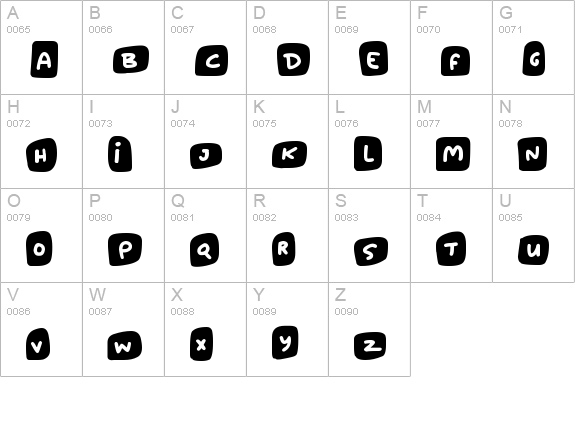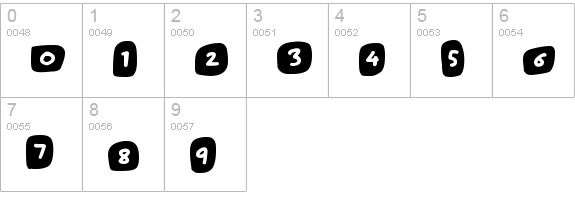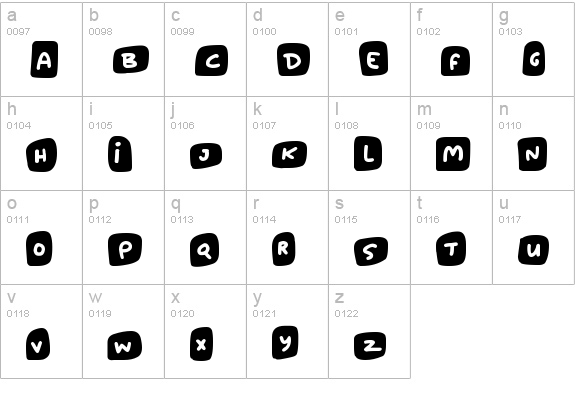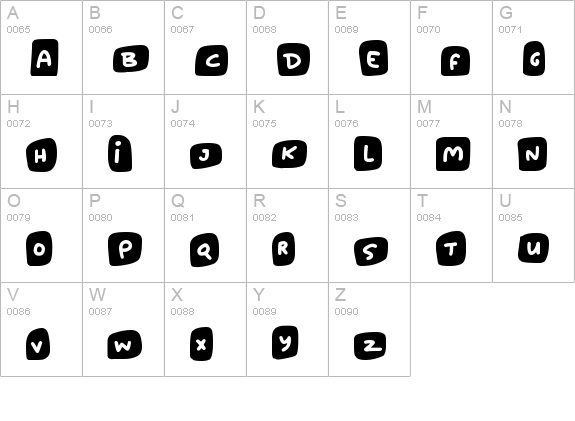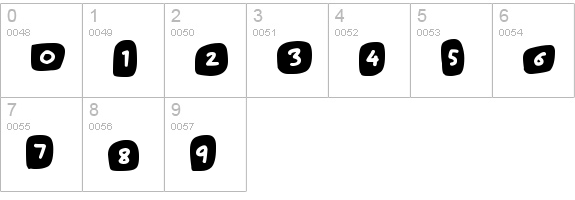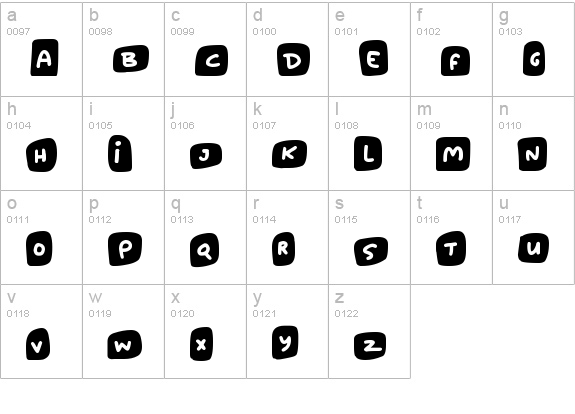
Marshmallows font is a whimsical and playful typeface that brings a touch of sweetness to any design project. With its rounded edges and soft curves, this font is reminiscent of fluffy marshmallows, evoking feelings of warmth and comfort. Whether you're creating a greeting card, packaging design, or branding materials, Marshmallows font is sure to add a delightful touch.